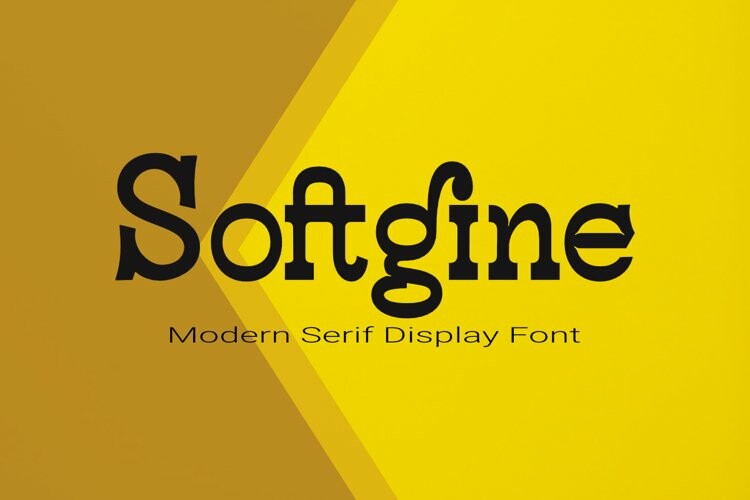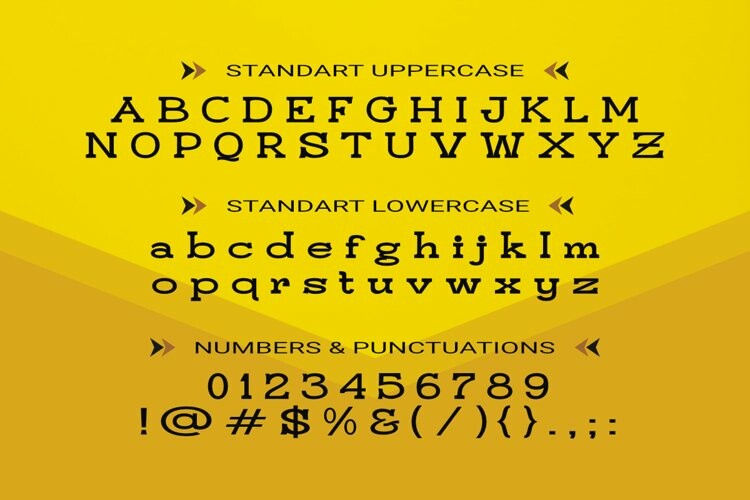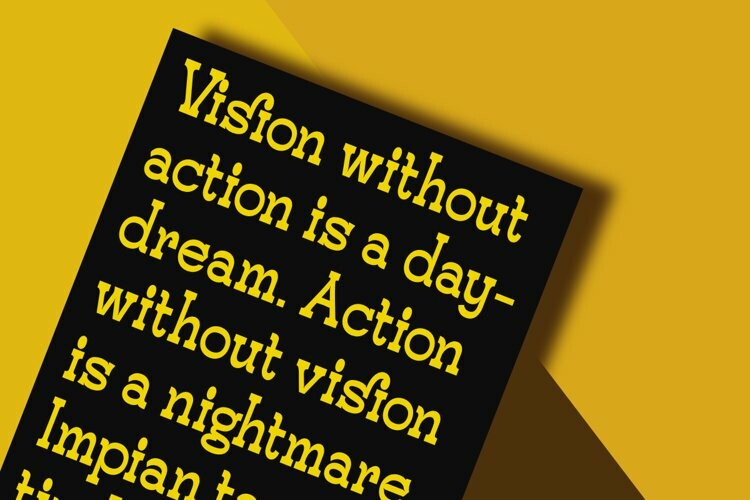
Softgine Font
Softgine FontSoftfine is a modern display serif font. It is very steadily used for brand boards, product apparel, advertisements, labels, and other ingredients. Because this font has more readability and the glyphs are easy to access, it’s really worth owning and wearing on the products and crafts you make.